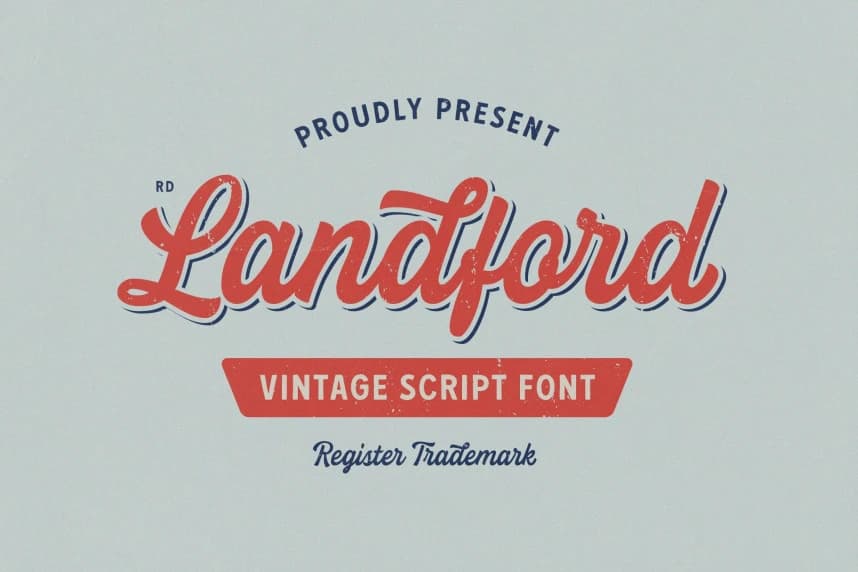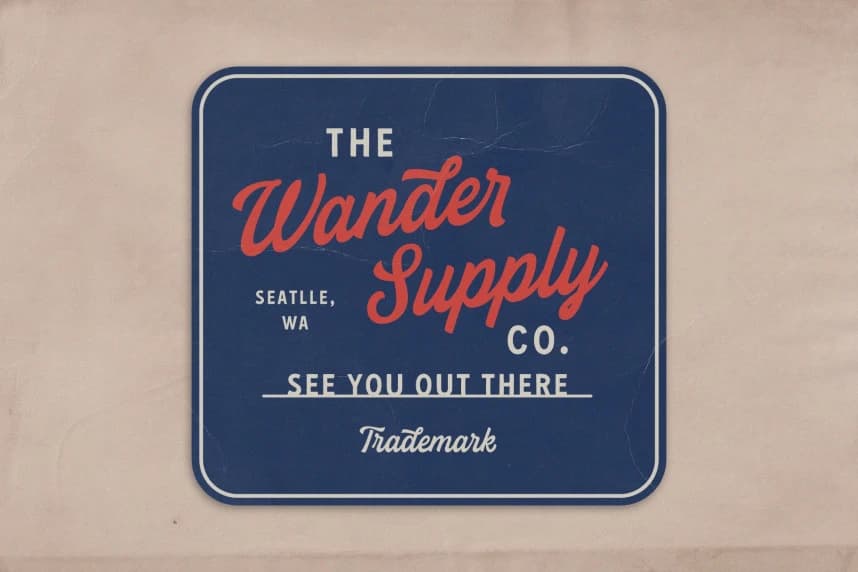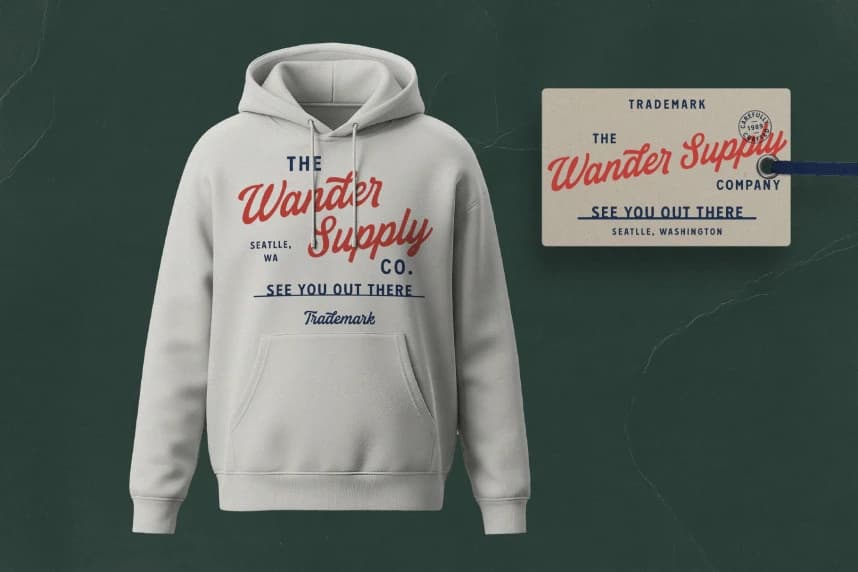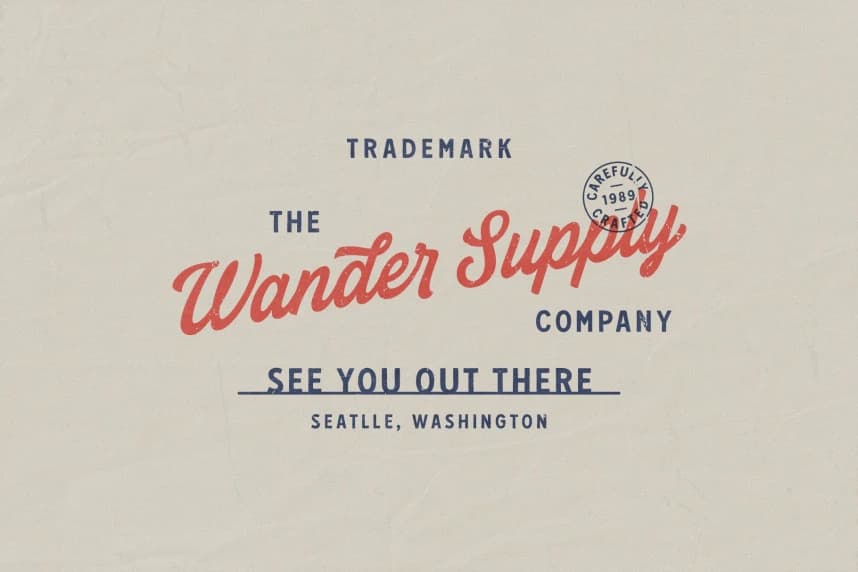
RD Landford Script Font
RD Landford Script Font! Landford is a playful yet striking clean brush script font. It's chunky, hand-drawn letterforms are guaranteed to stand out whether that be on lighthearted merchandise designs, branding project, logos, homeware design, product packaging, lettering compositions, t-shirts or more impactful quote designs.